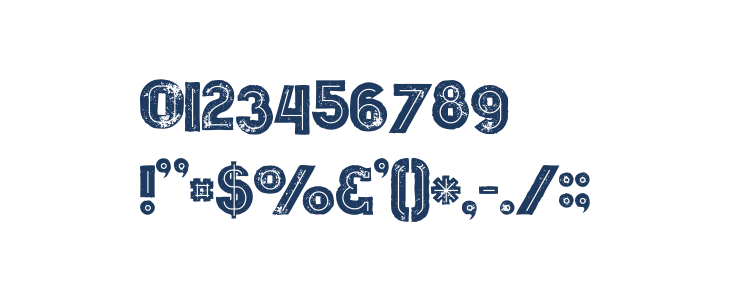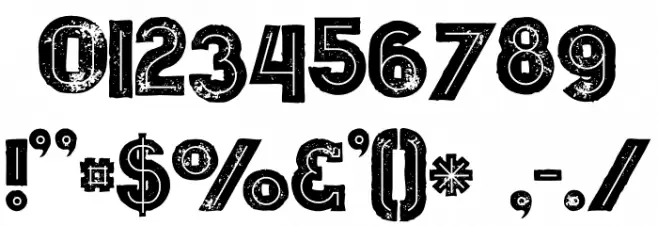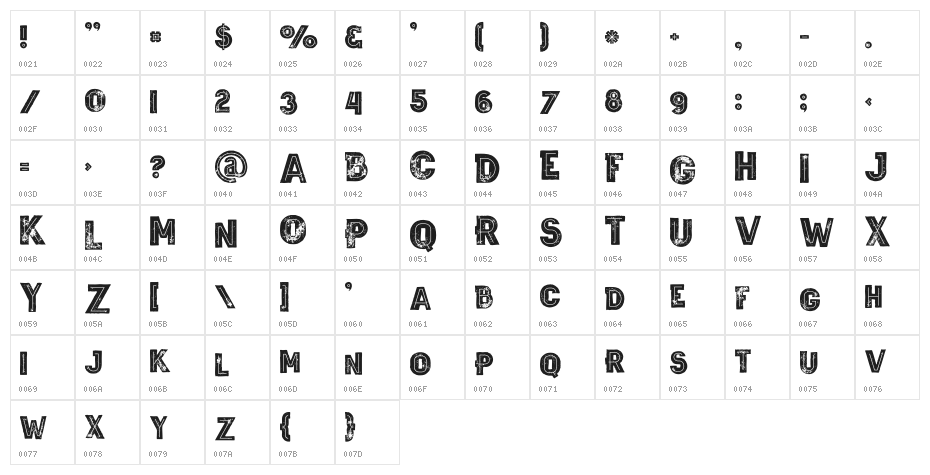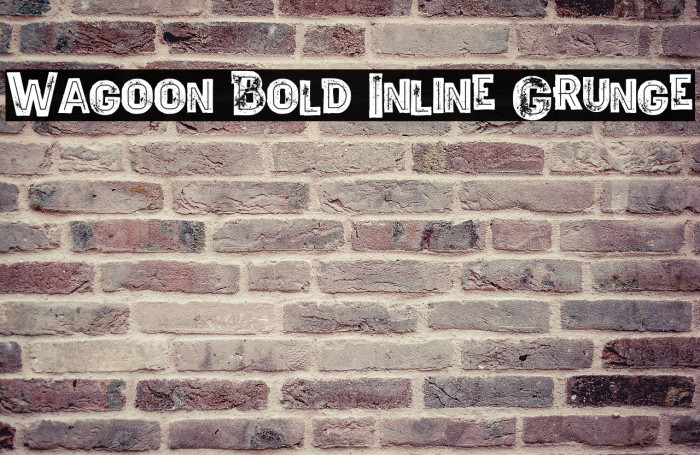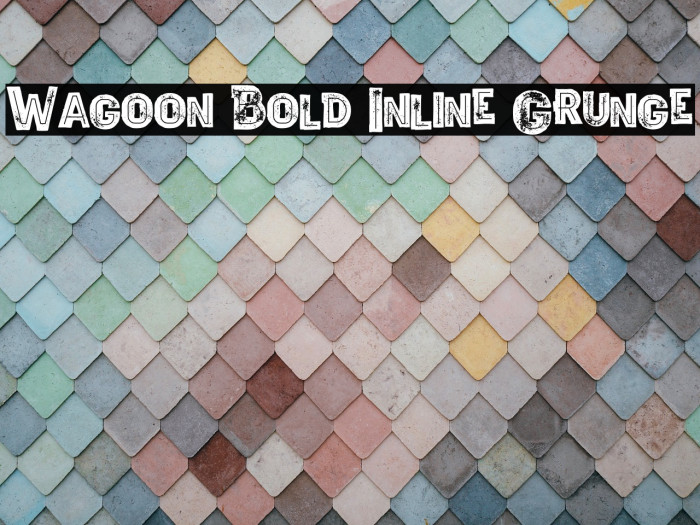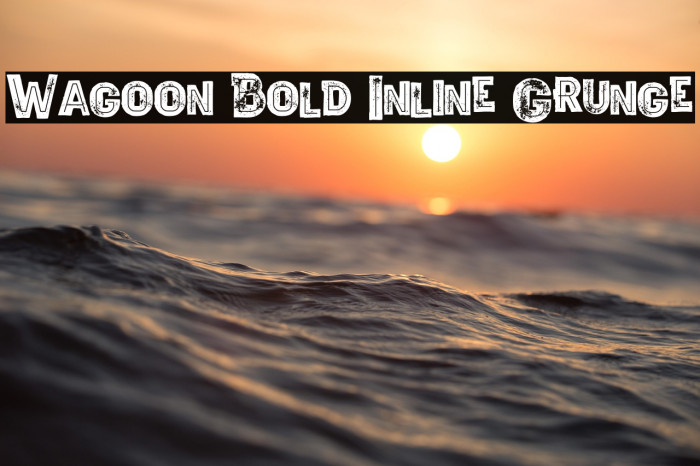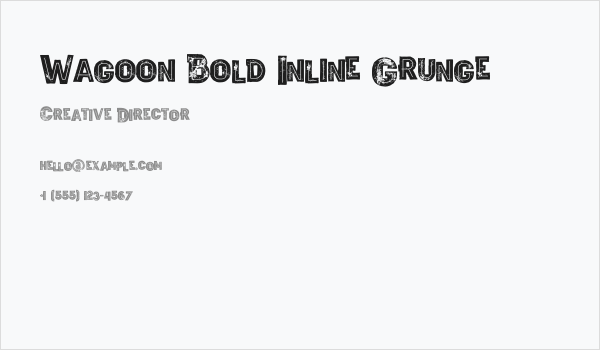
Wagoon Bold Inline Grunge Font
Wagoon Bold Inline Grunge Description
This font features a bold and rugged design with a distinct grunge effect. Each character is heavily textured, giving it a distressed and worn appearance. The inline style adds depth and dimension, creating a unique visual impact. The uppercase and lowercase letters maintain a consistent weight, while the numerals and special characters follow the same stylistic approach. The overall look is both edgy and artistic, making it suitable for projects that require a strong, eye-catching typeface.
A bold, grunge-style font with an inline texture and distressed appearance from Uncategorized fonts.
- Proposed Projects: Ideal for album covers, posters, branding for edgy or alternative products, and any design needing a bold, artistic touch.
- Use Case: Logos, Posters, Headlines